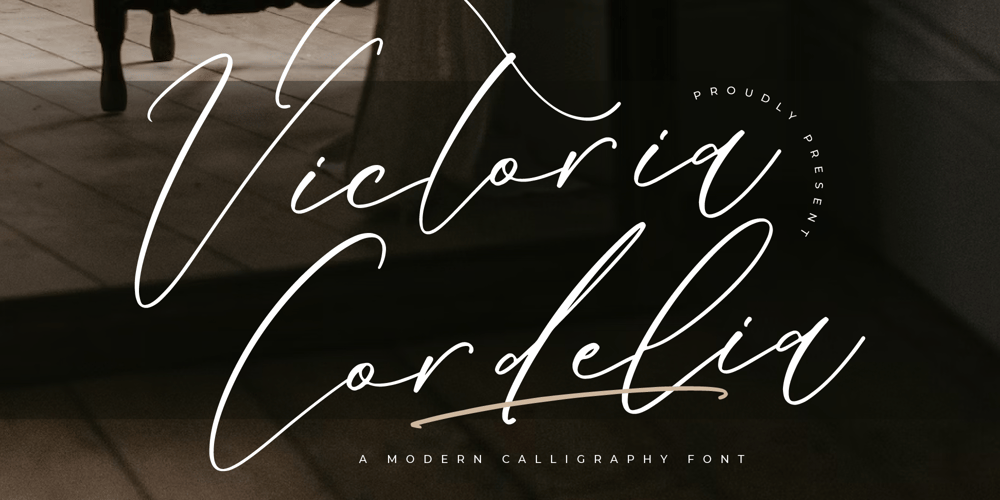
Victoria Cordeline Font Family was designed by Heru Utama Putra and published by Letterena Studios. Victoria Cordeline contains 2 styles and family package options. Victoria Cordeline is a delicate, elegant, and flowing handwritten font. It has beautiful and well-balanced characters and as a result, it matches a wide pool of designs.